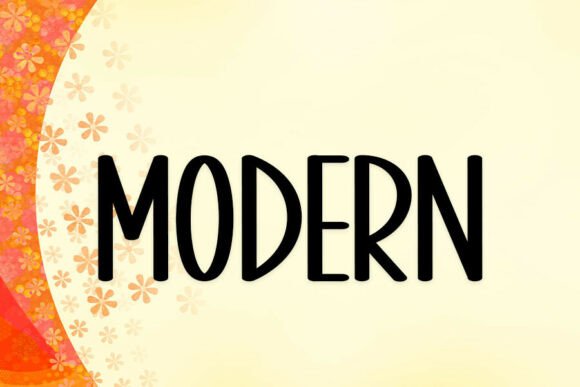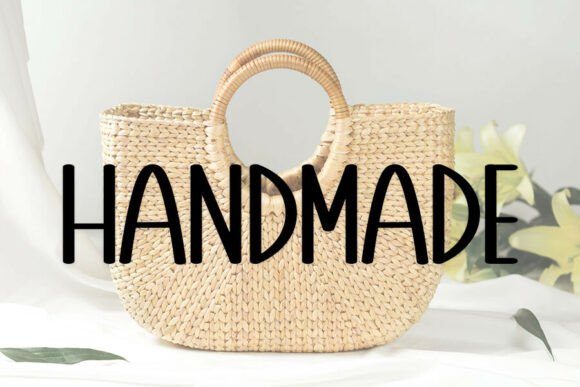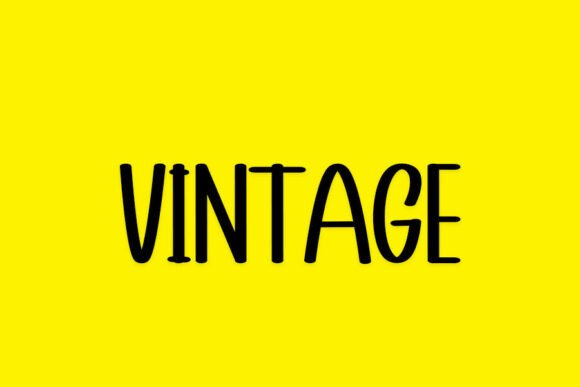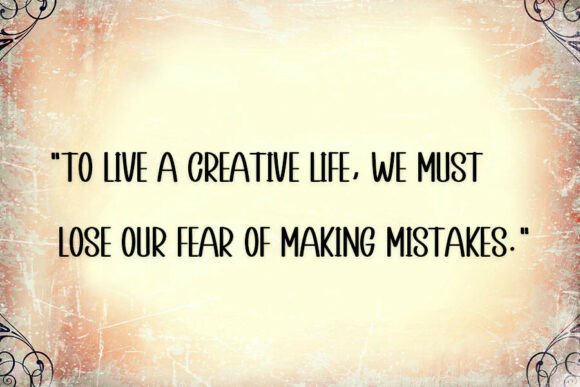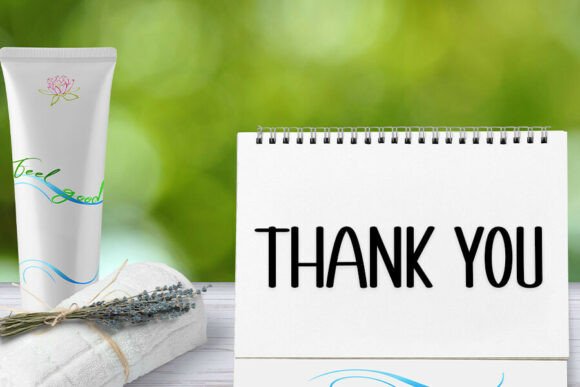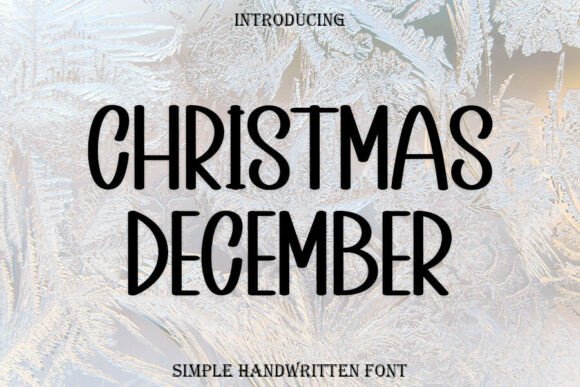
Christmas December Font: A Festive and Friendly Display Font for the Holiday Season
The holiday season is upon us, and with it comes the need for festive and fun designs that capture the spirit of Christmas and December. If you’re a designer, crafter, or DIY enthusiast looking for the perfect font to add some cheer to your projects, look no further than the Christmas December Font. This clean and cheerful handwritten display font is perfect for creating festive cards, seasonal packaging, and playful headlines that are sure to delight.
What is Christmas December Font?
Christmas December Font is a modern and elegant handwritten display font that blends a casual, handwritten look with winter-themed charm. Its tall, friendly letterforms are designed to evoke a sense of warmth and approachability, making it perfect for a wide range of holiday-themed projects. Whether you’re creating a festive card, designing seasonal packaging, or crafting a playful headline, this font is sure to add a touch of Christmas magic to your work.
Key Features of Christmas December Font
- Clean and Cheerful Design: Christmas December Font features a clean and cheerful design that is perfect for creating festive and fun projects.
- Handwritten Display Font: This font has a friendly, handwritten feel that’s perfect for adding a personal touch to your designs.
- Tall and Friendly Letterforms: The tall, friendly letterforms of Christmas December Font make it perfect for creating eye-catching headlines and titles.
- Winter-Themed Charm: This font blends a casual, handwritten look with winter-themed charm, making it perfect for holiday-themed projects.
- Great Spacing and Modern Legibility: Christmas December Font features great spacing and modern legibility, making it easy to read and perfect for use in a wide range of projects.
Christmas December Font is a versatile font that can be used in a wide range of projects, including:
- Festive Cards and Invitations: Add a touch of Christmas cheer to your holiday cards and invitations with this festive font.
- Seasonal Packaging: Use Christmas December Font to create eye-catching and festive packaging for your holiday products.
- Playful Headlines: Add some holiday fun to your headlines with this cheerful and modern font.
- Children’s Books and Crafts: Christmas December Font is perfect for use in children’s books, DIY crafts, and other kid-friendly projects.
- Holiday Social Content: Use this font to add some festive flair to your holiday social media content, including Facebook posts, Twitter updates, and Instagram stories.
Why Choose Christmas December Font?
There are many fonts to choose from, but Christmas December Font stands out for its unique combination of festive charm and modern legibility. Here are just a few reasons why you should choose this font for your holiday projects:
- Unique and Festive Design: Christmas December Font features a unique and festive design that’s sure to add some holiday cheer to your projects.
- Easy to Read: This font features great spacing and modern legibility, making it easy to read and perfect for use in a wide range of projects.
- Versatile: Christmas December Font can be used in a wide range of projects, from festive cards and invitations to seasonal packaging and playful headlines.
- Perfect for Designers and Crafters: This font is perfect for designers, crafters, and DIY enthusiasts looking for a festive and fun font to add to their projects.
If you’re looking for a festive and fun font to add some holiday cheer to your projects, look no further than Christmas December Font. With its clean and cheerful design, tall and friendly letterforms, and great spacing and modern legibility, this font is perfect for a wide range of holiday-themed projects. Whether you’re a designer, crafter, or DIY enthusiast, Christmas December Font is sure to become your go-to font for the holiday season.